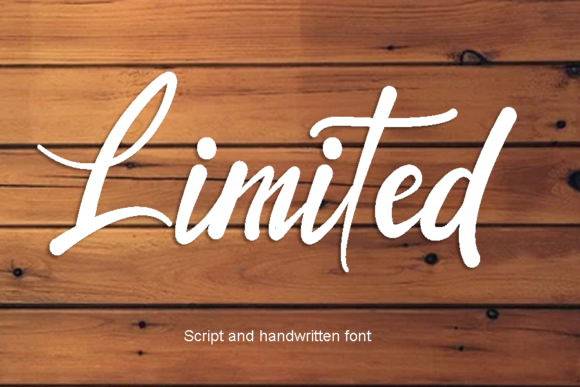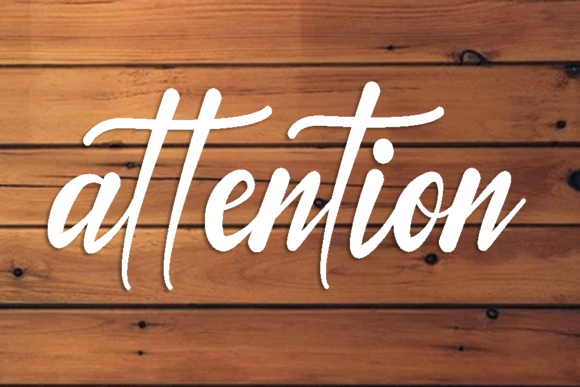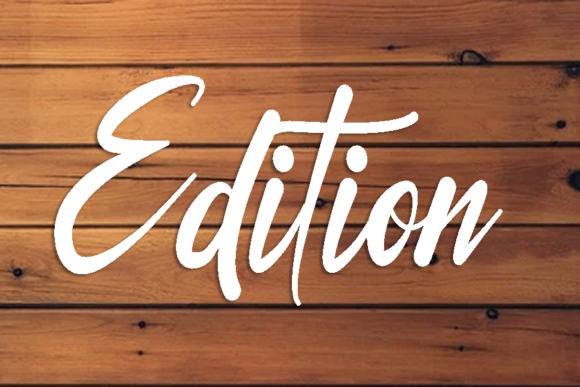
Limited is a versatile and charming script font that adds a touch of beauty and style to a variety of design projects. With its medium size and elegant letterforms, Limited is a perfect choice for a wide range of applications, from t-shirt designs to social media graphics and more.
One of the standout features of Limited is its adaptability to different design contexts. Its medium size strikes a balance between being legible and attention-grabbing, making it suitable for various design elements. Whether you’re working on t-shirt designs, quotes, mugs, tote bags, cards, banners, or craft projects, Limited can seamlessly integrate and enhance your creative vision.
When used on t-shirt designs, Limited adds a sense of uniqueness and personality. Its beautiful script style allows you to create eye-catching and memorable shirts that stand out. The elegant curves and lines of the font make it a great choice for both small chest prints and larger back designs, ensuring that your message is conveyed with style and impact.
Quotes take on a new level of sophistication with Limited. Its medium size ensures that the text is easily readable, while the elegant script adds a touch of flair and elegance to the words. Whether it’s an inspirational quote, a motivational saying, or a heartfelt message, Limited brings a sense of artistry to the text.
Mugs and tote bags become more than just everyday items when adorned with Limited. The font’s medium size makes it the perfect fit for these products, allowing you to create personalized and stylish pieces that people will love to use and show off.
When it comes to cards and banners, Limited brings a sense of celebration and joy. Its script style adds a touch of warmth and personality to special occasion cards, invitations, and event banners. Whether it’s a birthday, wedding, or holiday greeting, Limited can help you convey your message with a touch of elegance.
Limited also shines on social media platforms, where its medium size ensures that your posts and graphics are easily readable on screens of all sizes. Whether you’re sharing a quote, promoting a product, or creating engaging content, Limited’s graceful letterforms add a visual appeal that captures attention.
Craft projects come to life with Limited, as its medium size makes it perfect for adding a personal touch to handmade items. From handmade cards to DIY home decor, the font’s elegance enhances the overall aesthetic of your creations.
In summary, Limited is a medium-sized script font that brings beauty, elegance, and versatility to a wide range of design projects. Its ability to seamlessly fit into different contexts—from t-shirt designs to social media graphics and craft projects—makes it a valuable tool for designers looking to add a touch of sophistication and style to their creations. With Limited, you have a font that can elevate your designs and make them truly stand out.